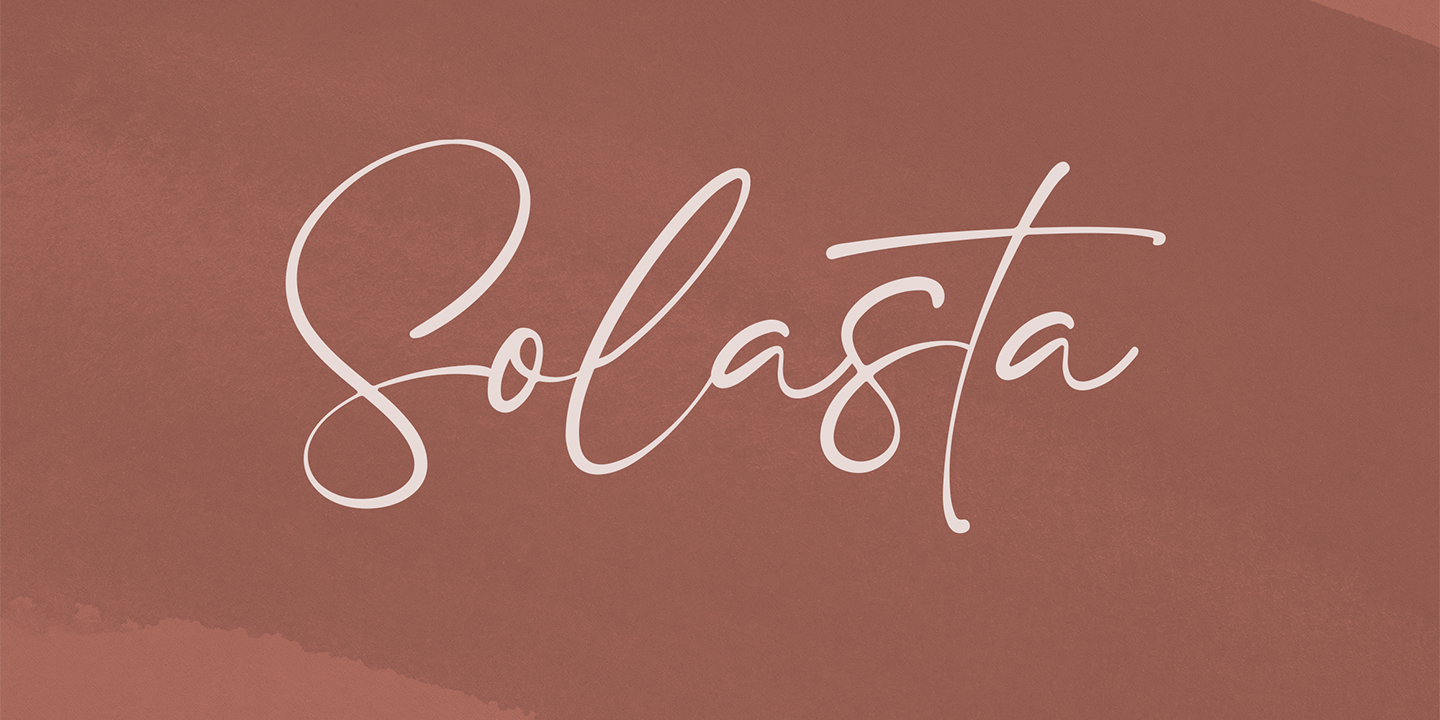
Solasta Font is perfect for fantasy adventure gaming, mystical branding, magical realm designs, enchanted story publications, fantasy entertainment materials, role-playing game graphics, magical adventure campaigns, and celestial display typography.
What makes Solasta Font exciting is its mystical celestial character that embodies magical adventure and otherworldly enchantment through ethereal letterforms and fantasy appeal. This captivating typeface features mystical construction, celestial details, and adventure personality that captures the essence of magical realms and fantasy quests, making it ideal for projects seeking to communicate magical wonder, fantasy adventure, and mystical exploration with authentic celestial appeal and magical sophistication.
The Solasta Font family includes Light, Regular, and Bold weights, each maintaining the characteristic mystical energy and celestial appeal that define this distinctive typeface's fantasy personality and magical sophistication.
Solasta Font Free Download offers designers access to a typeface that perfectly captures the essence of magical adventure and celestial fantasy worlds. This enchanting font brings authentic mystical aesthetics to contemporary projects, making it essential for fantasy gaming companies, magical entertainment brands, and adventure organizations targeting audiences fascinated by mystical realms and fantasy exploration. The font's celestial construction and magical details ensure immediate recognition of wonder and enchantment while its distinctive character creates mystical connections among individuals drawn to fantasy adventures and magical storytelling. Whether designing fantasy gaming materials, magical adventure campaigns, or mystical brand communications, this font delivers the celestial authenticity and magical sophistication that fantasy enthusiasts expect. Its mystical foundation and celestial symbolism make it indispensable for projects celebrating fantasy culture, magical adventure, and the transcendent power of mystical exploration, ensuring communications resonate with audiences who value the magical wonder, celestial beauty, and fantasy adventure that define authentic mystical experiences and magical storytelling across diverse fantasy gaming and adventure entertainment applications.